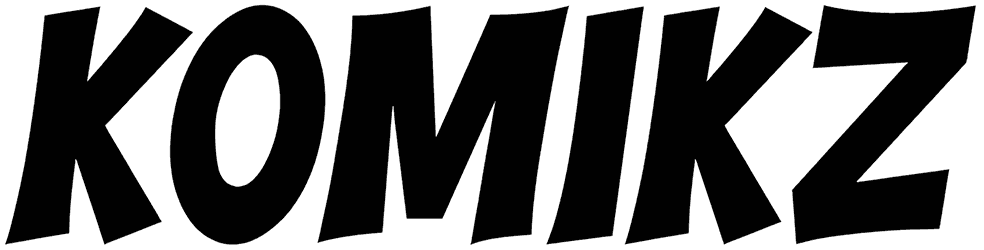
Komikz Font
Komikz font is like an explosion of energy that gives life and vitality to any text it touches. This comic font is bold, playful, and loud, and can attract the eyes best.
The thick lines and mischievous angles in this fancy font can bring fun and freshness to any project, be it a children’s book, a graphic novel, or even a marketing campaign. It’s an excellent choice for anyone who wants to infuse their work with a bit of personality and humor.